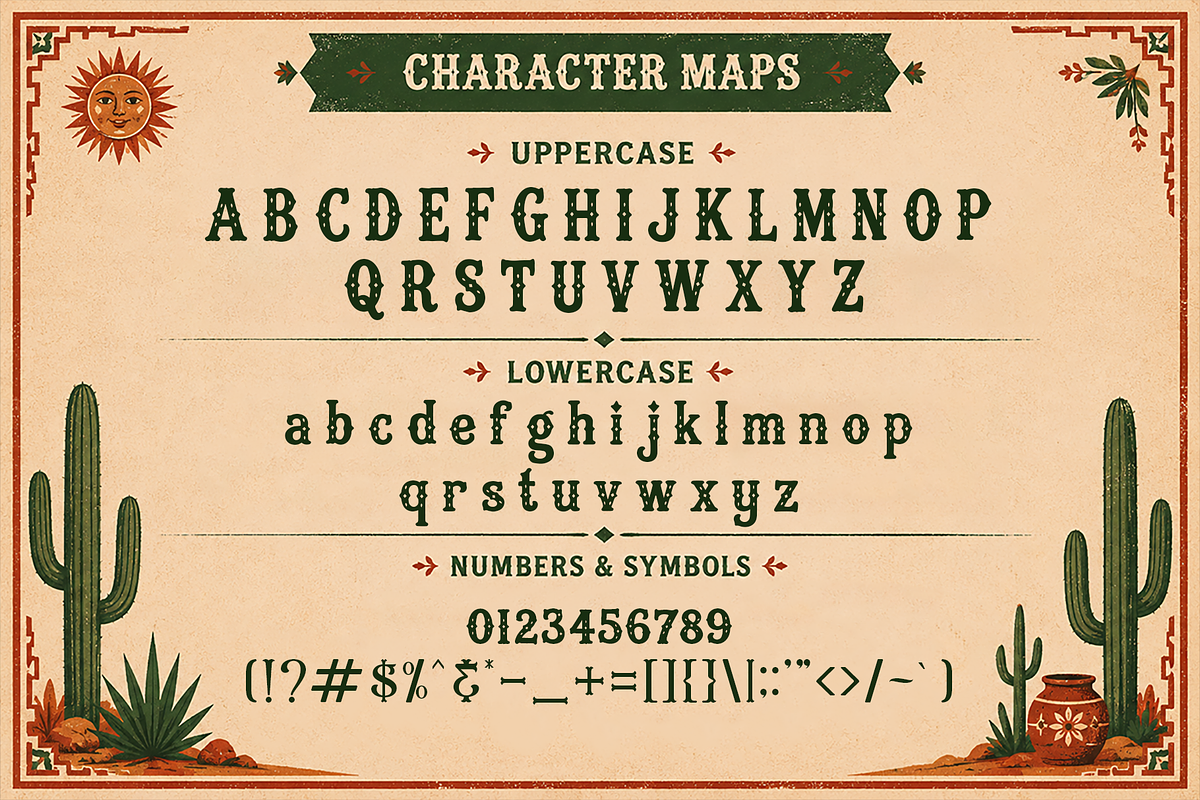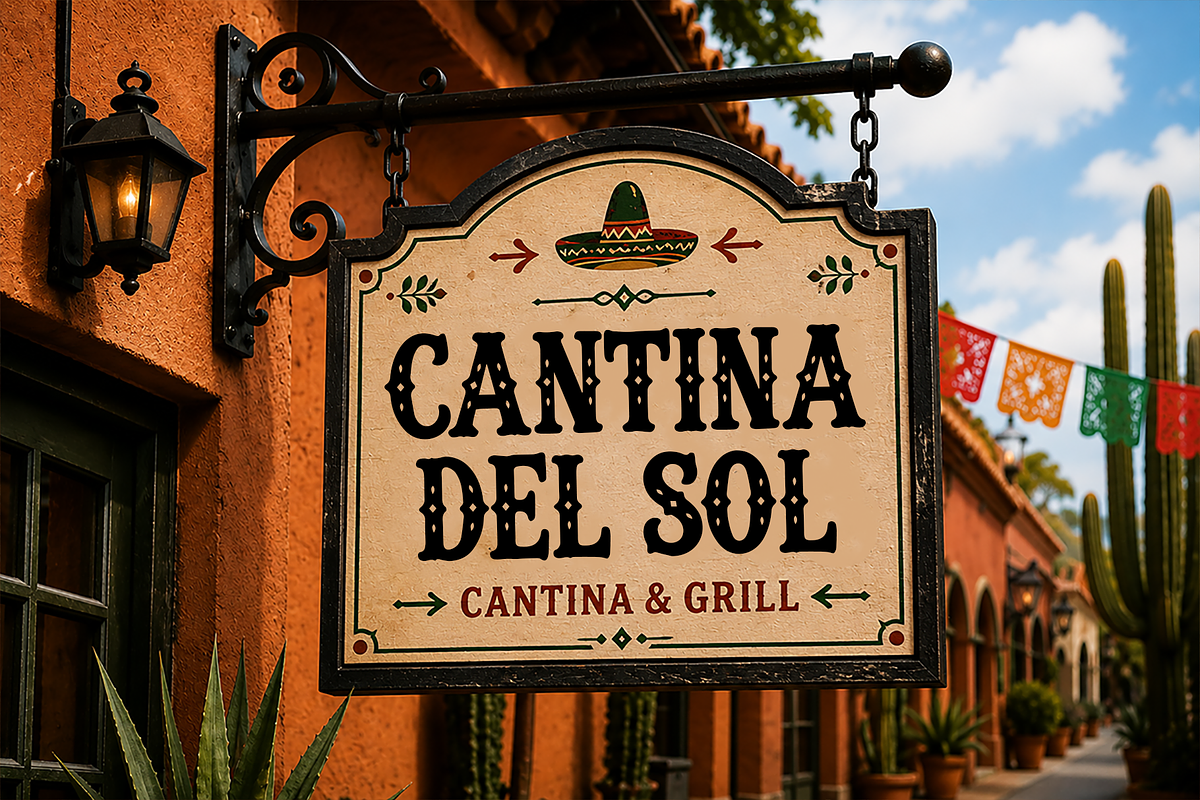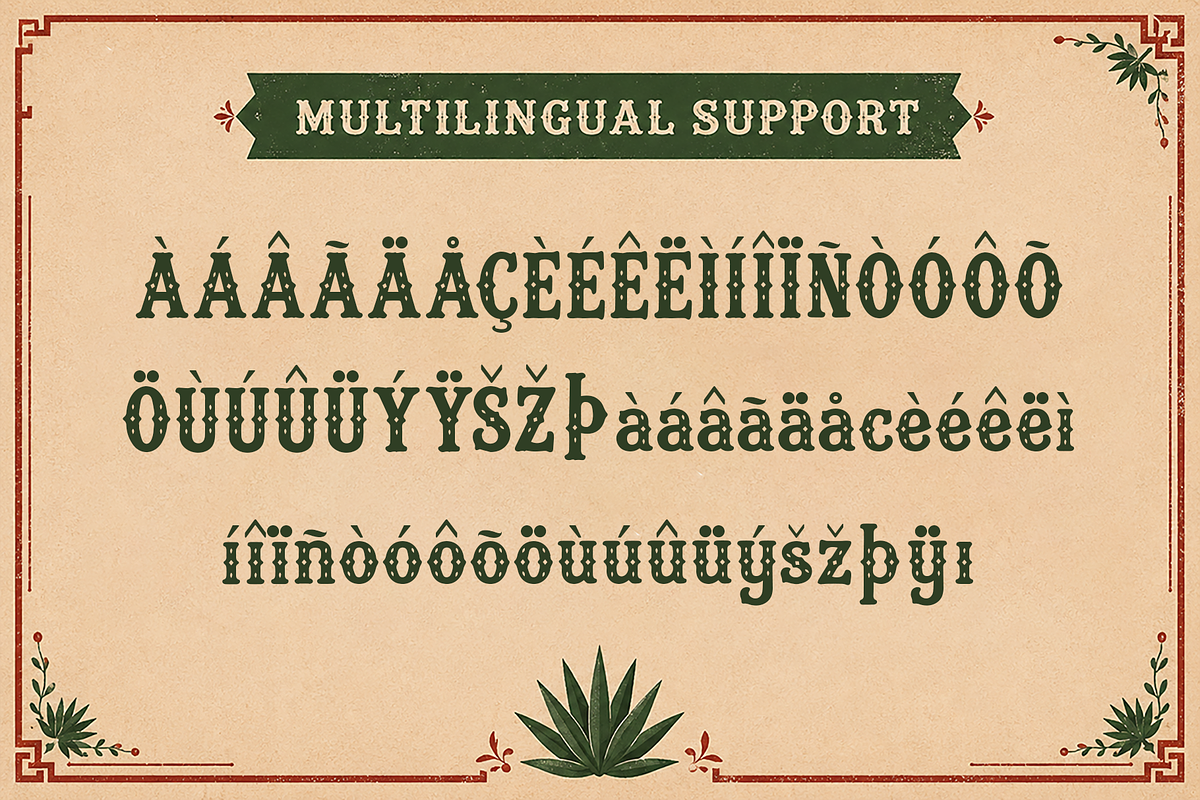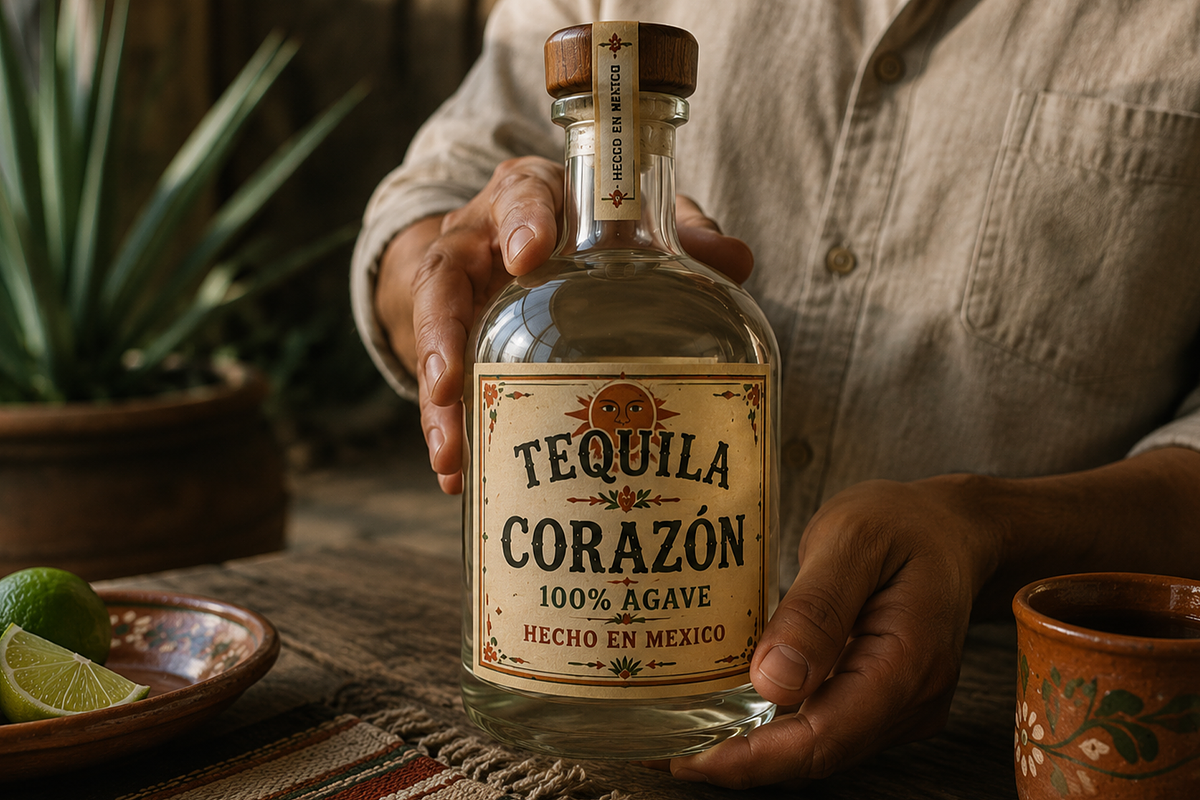
Fiesta Mexico - Mexican Display Font
Meet Fiesta Mexico, a bold Mexican inspired display font that captures the colorful energy, rich traditions, and festive atmosphere of Mexican culture. Featuring decorative serif details, handcrafted textures, and a vintage western influence, this typeface delivers an authentic look that's perfect for creating eye-catching designs with warmth and personality.
Expertly crafted for impactful headlines and creative branding, Fiesta Mexico is ideal for Mexican restaurants, taco shops, tequila and mezcal labels, Cinco de Mayo celebrations, travel posters, food packaging, cultural festivals, souvenirs, event promotions, logos, merchandise, and social media graphics. Its distinctive letterforms evoke the charm of traditional Mexican signage while maintaining excellent readability across both print and digital media.